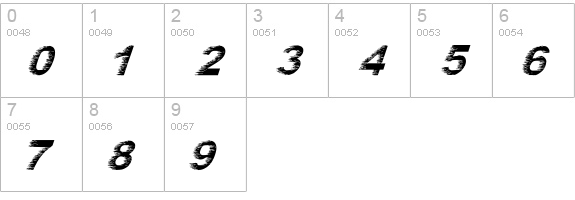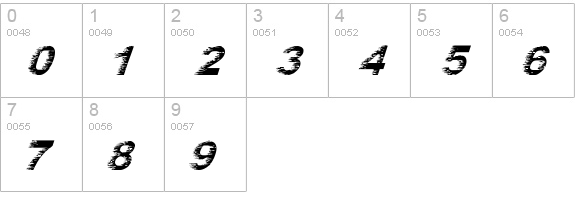
storm ExtraBold Font Details
storm ExtraBold is an extra-heavy, attention-grabbing variant in the storm typeface family \xE2\x80\x94 well suited to high-impact headlines, posters, and bold branding.
Introducing Storm ExtraBold - a bold and commanding font that exudes strength and power with its robust and impactful design. This font is perfect for creating eye-catching titles, headlines, and banners that demand attention. The thick strokes and sharp edges of Storm ExtraBold make it ideal for projects that require a bold and dynamic typography. But the best part? Storm ExtraBold is available for free download at FontsMarket.com! Now you can easily access this powerful font without any cost, making it a valuable addition to your design arsenal. Don't miss out on the opportunity to elevate your designs with the striking presence of Storm ExtraBold. Download it now and unleash the storm of creativity in your projects!